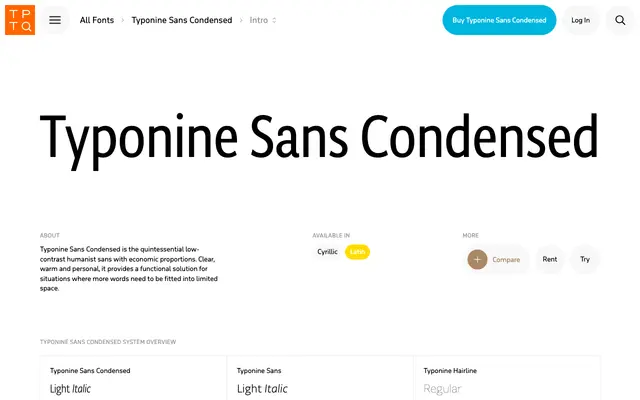
Typonine Sans Condensed
Typonine Sans Condensed specimen from Typotheque
The condensed width variant of Typonine Sans, offering four weights with italics for space-efficient text setting.
Part of the wider Typonine Sans system alongside the regular width and Hairline subfamilies, the condensed cut covers Light through Bold with matching italics. Individual styles are sold under city names, a convention Typotheque uses across several of its families. Latin character support is confirmed, and the system architecture suits editorial and information design where width economy matters.
The condensed companion to Typonine Sans, this is a humanist sans with a system architecture spanning multiple widths and weights, consistent with Typotheque's text-focused type families.